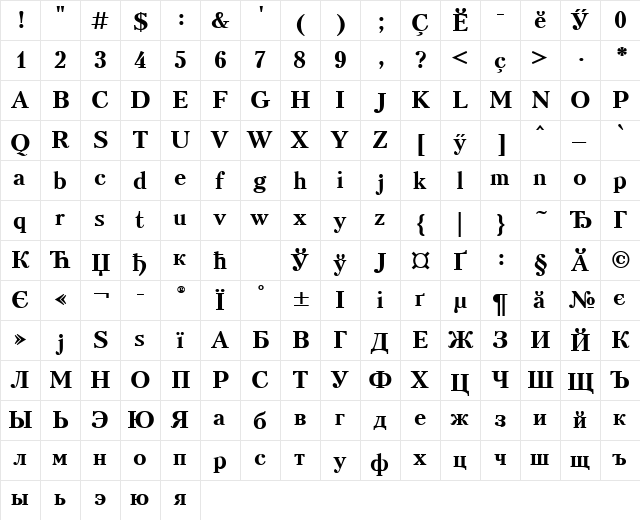
Peterburg Chuv Bold Bold
Design Context for Peterburg Chuv Bold Typeface
Peterburg Chuv Bold takes a measured approach to typography — its balanced proportions and neutral character make it a reliable workhorse for both digital and print work. Its bold stroke weight gives it real presence on the page.